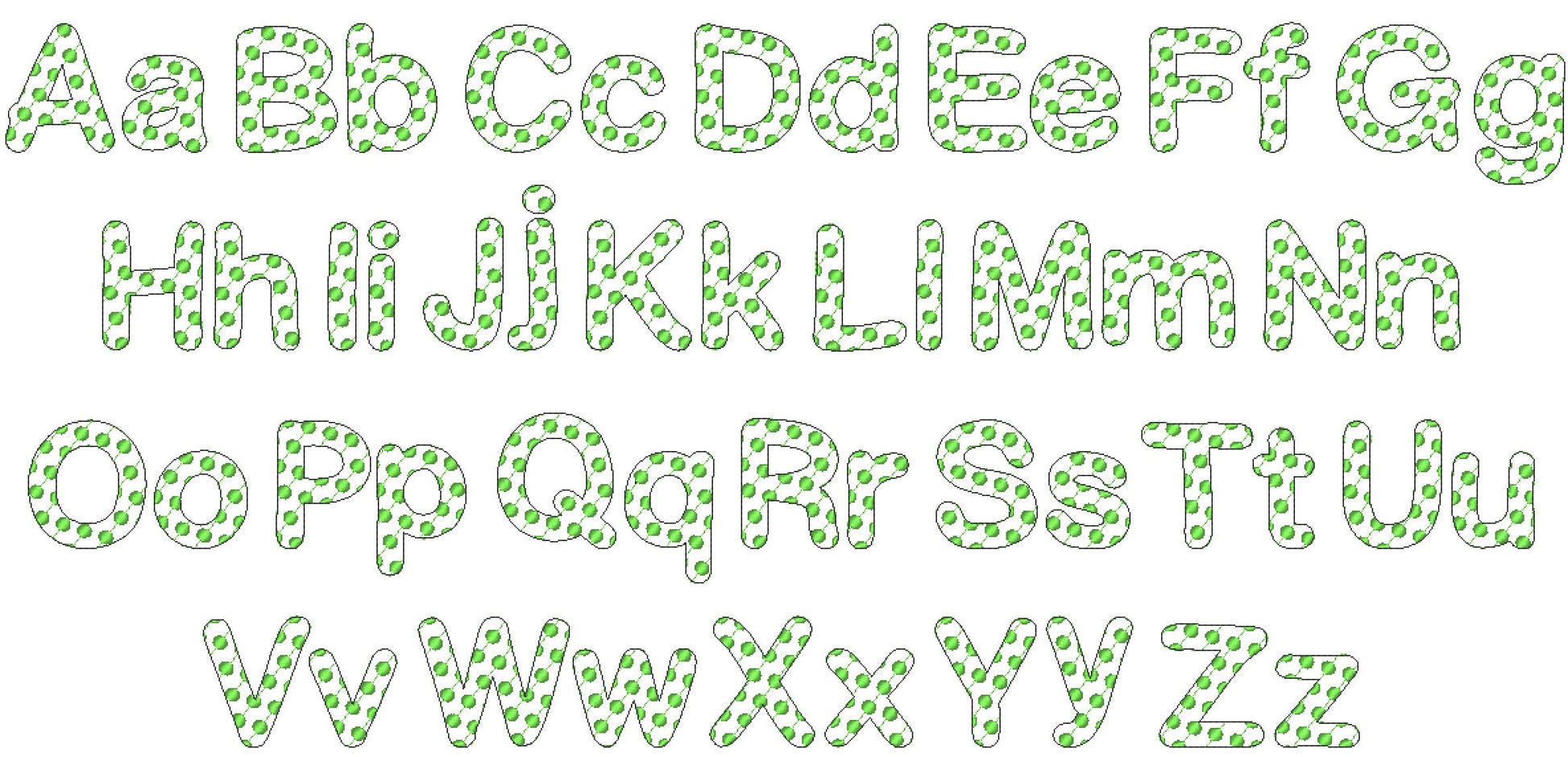
Polka Dot Minnie Mouse Outline Font
Or click to open the linkBX included! Polka DOT Minnie mouse Font alphabet kids letters light sketch outline machine embroidery designs assorted sizes 1.5, 2, 3, 4in
This is a quick stitch design, letters look like laces, the background fabric looks through.